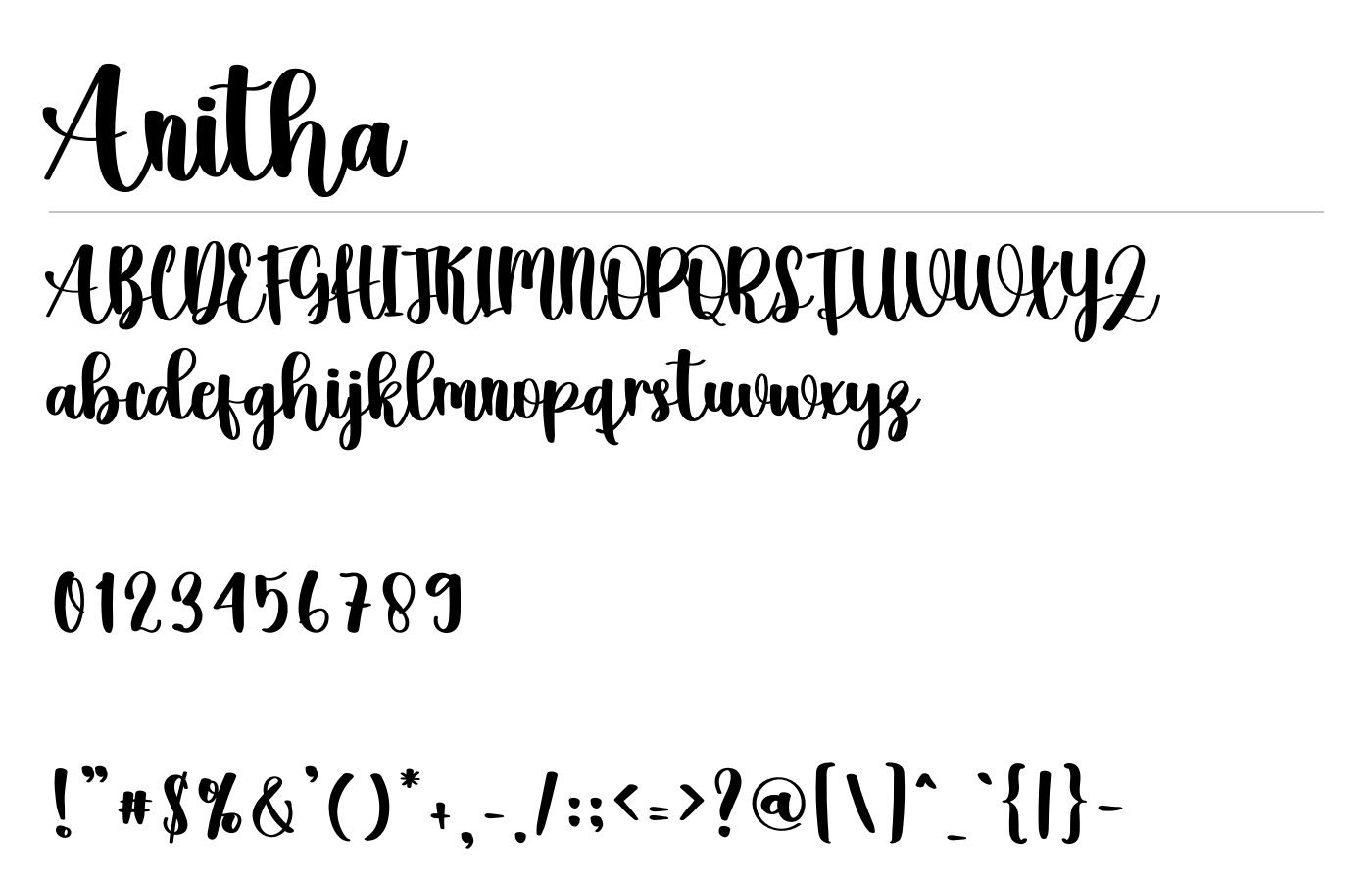
Anitha is a lively, script-style font with bold, rounded strokes and a playful yet elegant feel. Its flowing letterforms and high contrast between thick and thin lines make it perfect for branding, invitations, and eye-catching headlines where a friendly and creative touch is desired. This font’s warm personality suits fashion, lifestyle, and artistic projects that want to convey charm and approachability.
Anitha Font
About Anitha Font